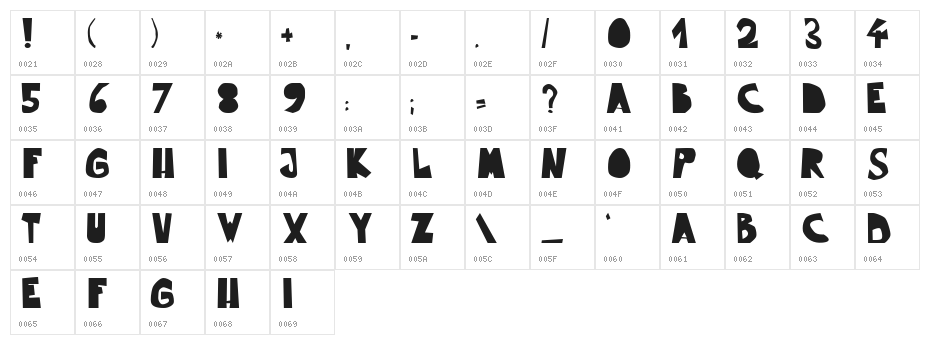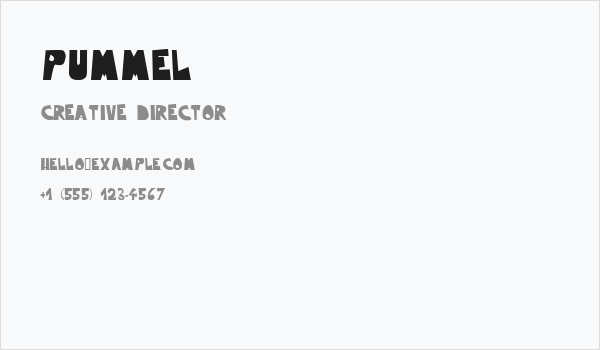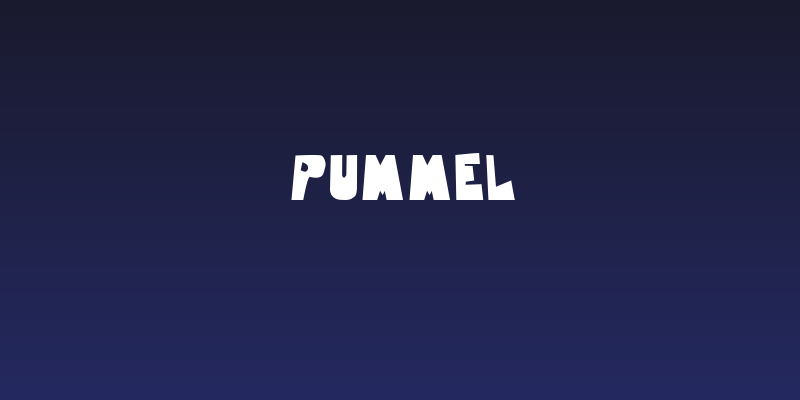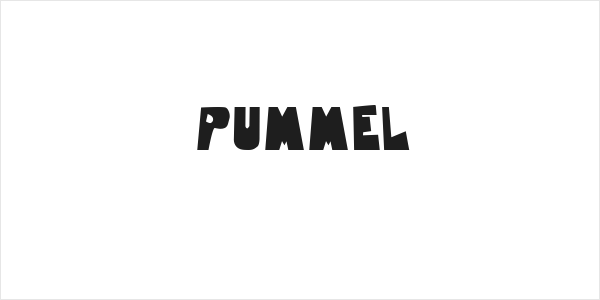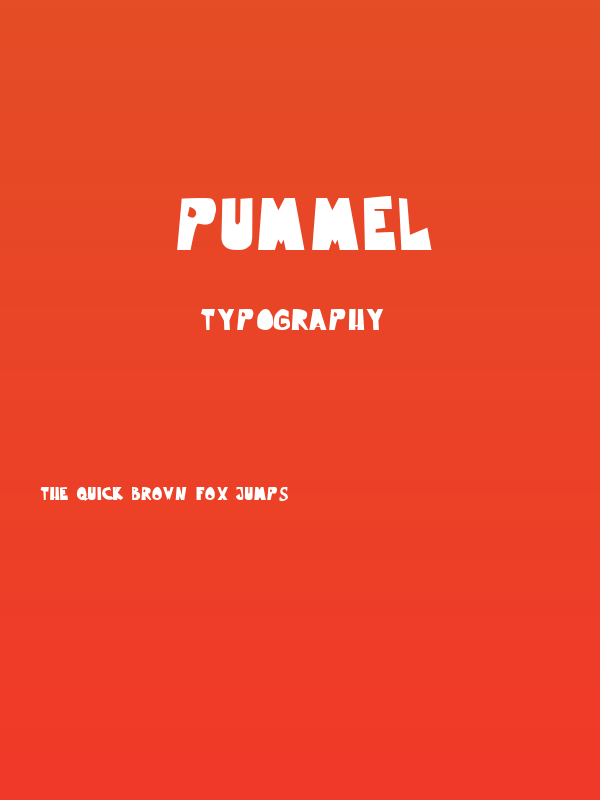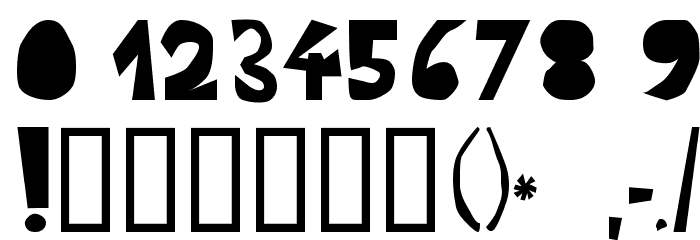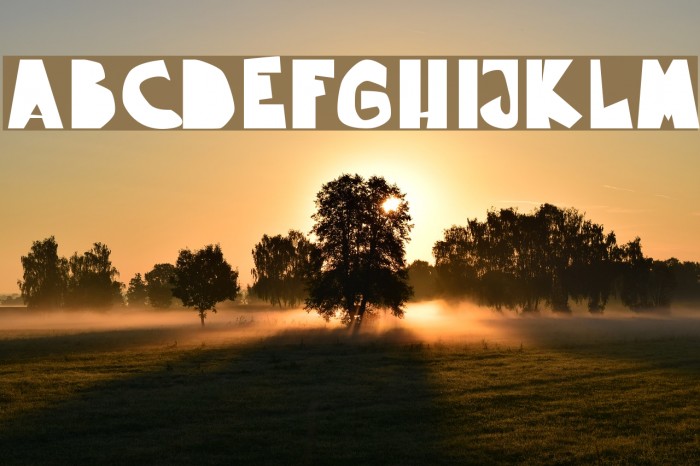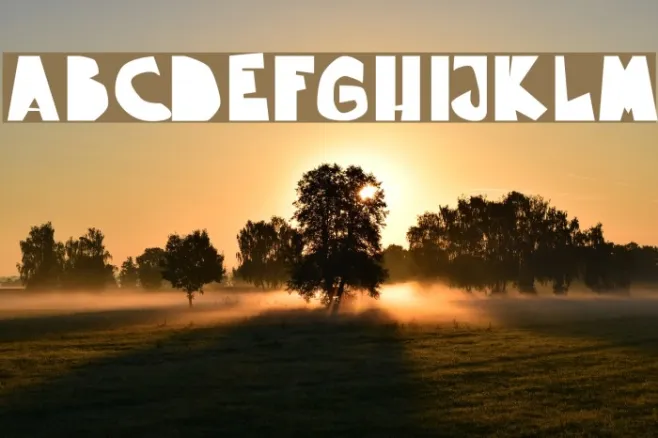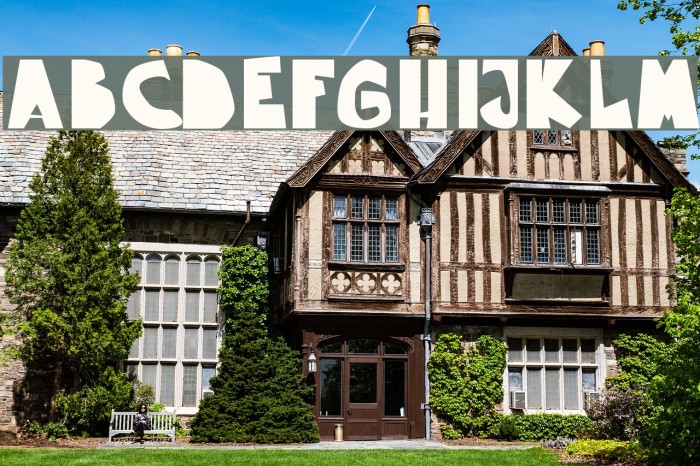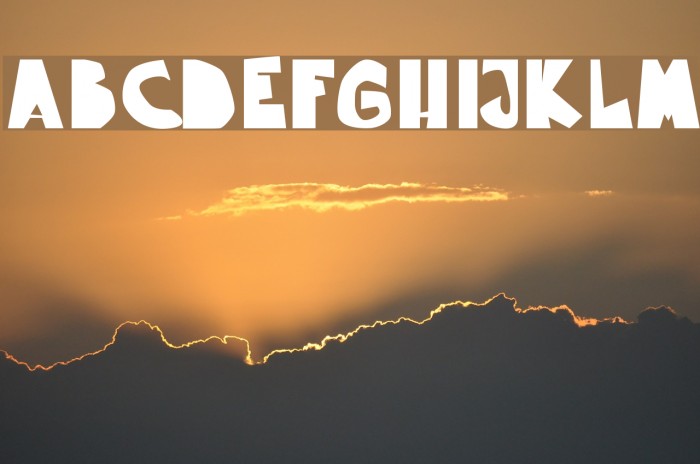
Pummel Font
Pummel Description
This font features a bold and playful design with irregular, chunky letterforms that convey a sense of fun and energy. The characters have a hand-cut appearance, with varying angles and curves that create a dynamic visual rhythm. The uppercase and lowercase letters maintain a consistent style, while the numerals and special characters complement the overall aesthetic. The font's unique style makes it suitable for projects that require a bold and eye-catching display, such as posters, headlines, and branding materials.
| Overall Style | Playful, Energetic |
| Use Case | Headlines, Posters, Branding |
| Proposed Projects | Ideal for posters, headlines, branding, and any project needing a bold, energetic display. |